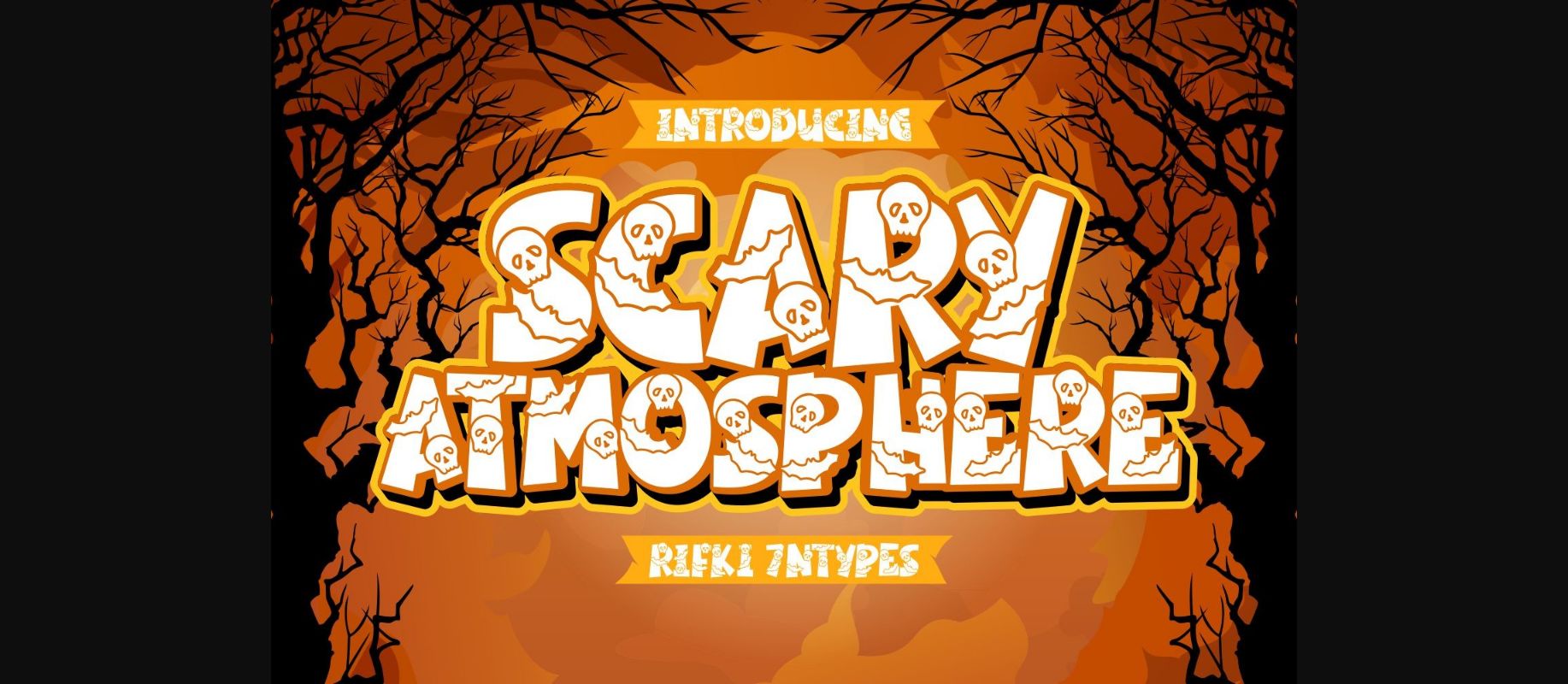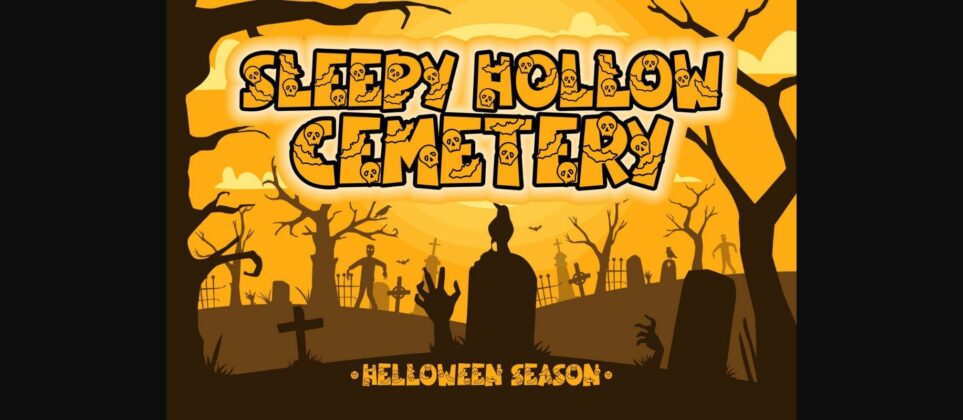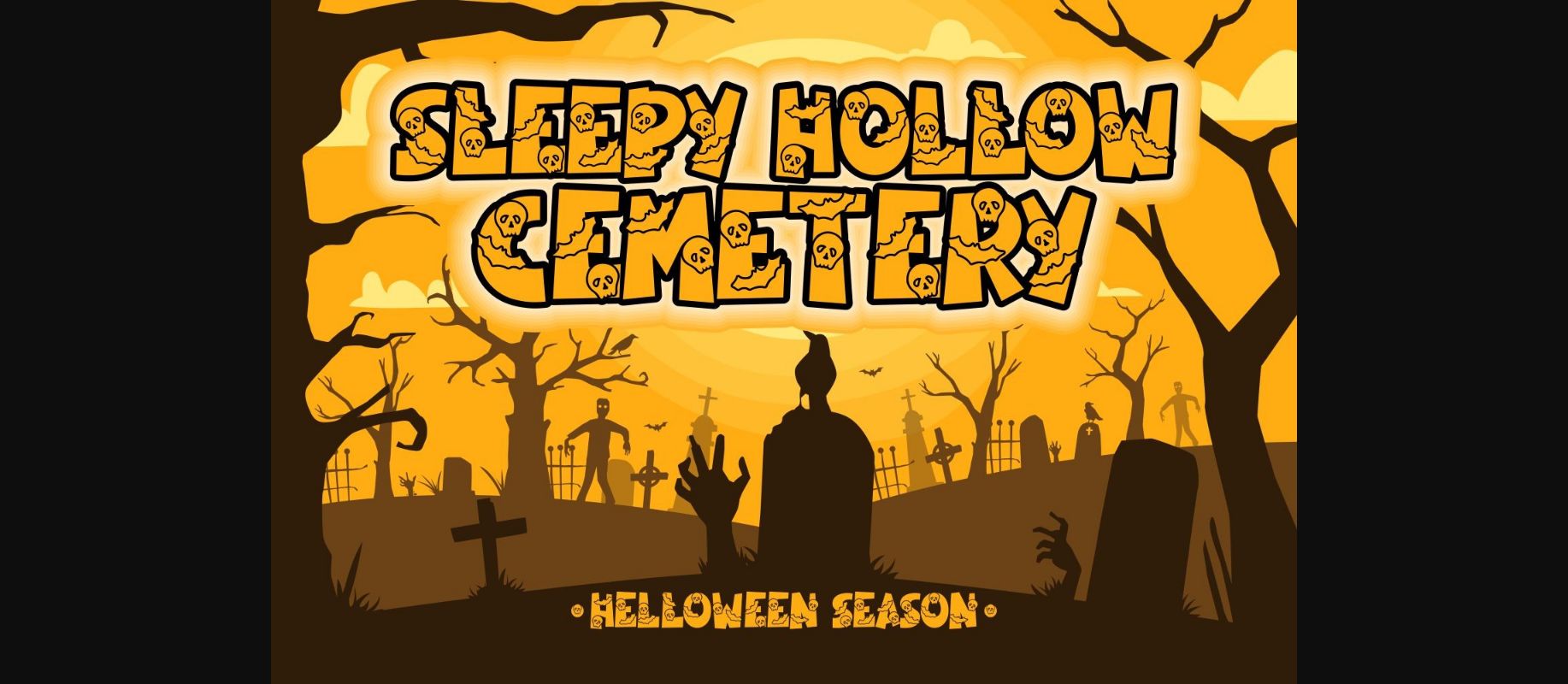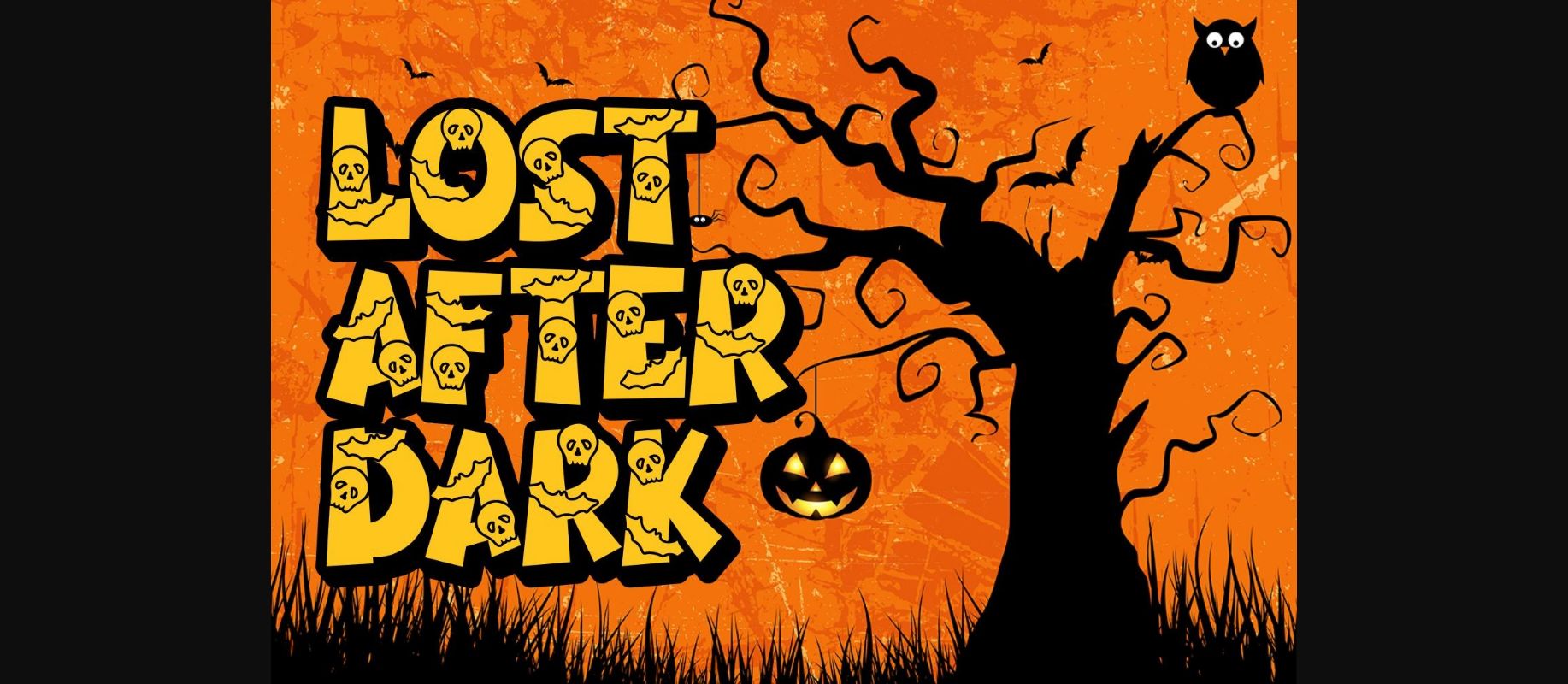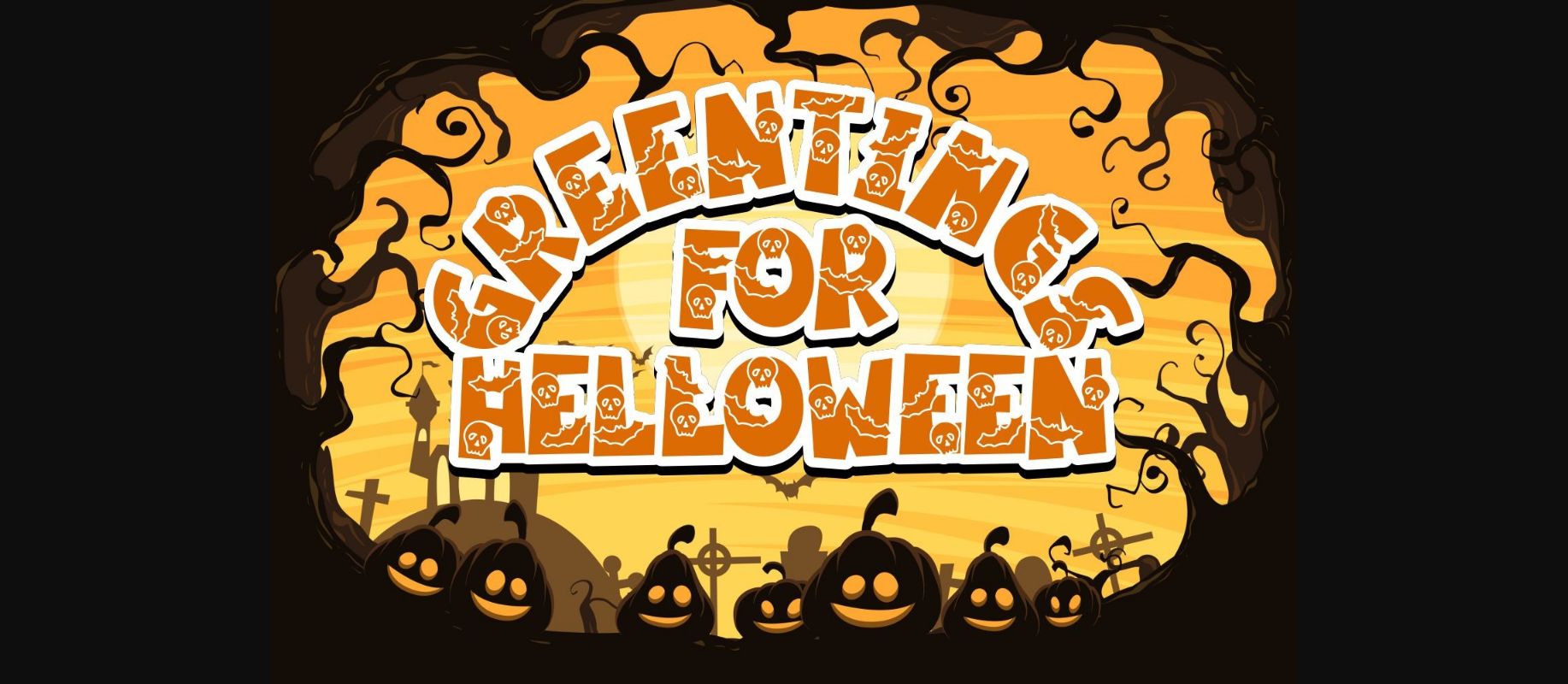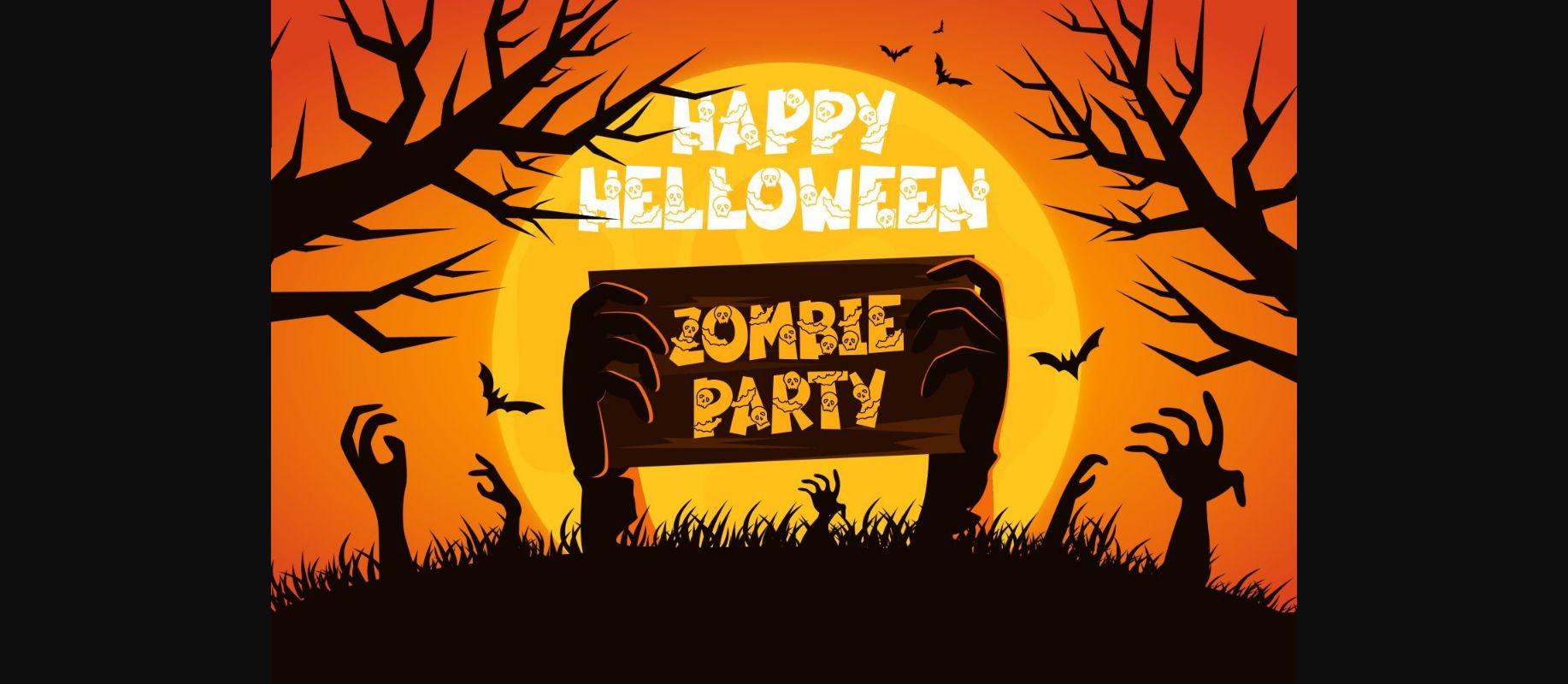
Scary Atmosphere Font
About Scary Atmosphere Font
Scary Atmosphere is a fascinating decorative font featuring bold characters and spooky decorations for the full-on Halloween effect! Use it for scary movie covers, spooky games, Halloween stationery, and more!